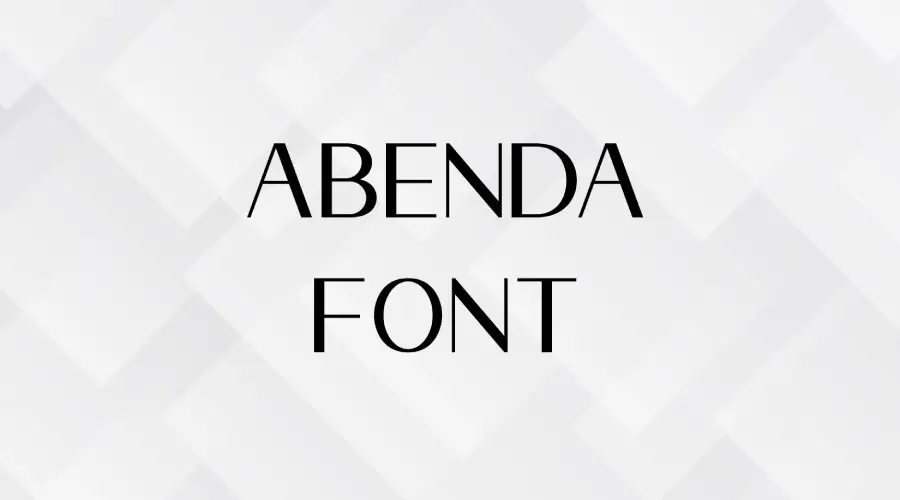
Abenda Font is a new typeface. This is a beautiful sans-serif font. This Font is practical and straightforward. This typeface is a classic that will not let you down since it works well as the primary character or as a supporting character. Pen Culture created it and made it available to the public. It’s a modern sans-serif family with an appealing design. Abenda is simple to use and is complemented by attractive and sophisticated alternatives.
The typeface can also be used in conjunction with other fonts. This Elegant Sans serif font is available for personal use for free. The typeface comprises 77 glyphs in its standard design, including 72 basic Latin and five trendy punctuation. It was designed with bold strokes to ensure a clean appearance in all situations. The Font is compatible with Windows, Apple/Mac, Linux, Cricut, Silhouette, and other cutting machines. It’s simple to convert the lovely typography to a web font. Another great thing about this Font is that it is PUA Encoded.
Abenda Font is suitable for a wide range of applications, including logos, posters, art, branding, publications, stationery, and websites. The Font is virtually universally applicable to any form of design. However, I believe it is an excellent choice for use in backgrounds. It will look better against a light background than with a dark background.
Abenda font is an elegant sans-serif font family with a modern typeface concept. It is easy to use and comes with elegant and classy designs. The font is available for free download and you can check it out on our font generator. It is a great choice for designers who want to create a sense of luxury and exclusivity. So, download it now and give it a spin on your design!